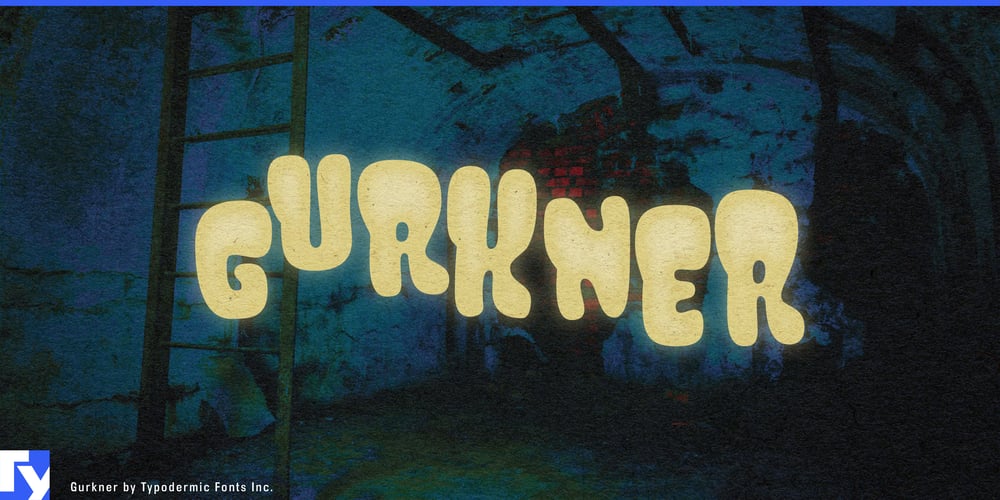
Gurkner
Gurkner font
Gurkner Font Family was designed by Ray Larabie and published by Typodermic. Gurkner contains 2 styles and family package options. Get ready for a typographic haunting like no other with Gurkner, the font that’s more than just letters—it’s a paranormal party on your page! This isn’t your grandmother’s spooky typeface; it’s a shape-shifting specter that dances between order and chaos with supernatural glee.Picture Gurkner as the Jekyll and Hyde of typography. On one side, you have the well-behaved ghost—a line of letters as neat and orderly as a parade of see-through Boy Scouts. But flip the typographic switch, and watch out! Suddenly, you’re dealing with a full-on poltergeist, each character bouncing and jiving like it’s just chugged a gallon of ectoplasmic espresso. But here’s where Gurkner really works its magic: its customizable pairings are like a Ouija board for your designs. Watch in awe as letters automatically swap and combine, creating a living, breathing text that’s as unpredictable as it is captivating. It’s not just type; it’s typographic necromancy!Gurkner isn’t content to haunt just one linguistic realm, either. Supporting a vast array of Latin-based European and some Cyrillic-based writing systems, this ghostly glyph set is ready to rattle chains and raise goosebumps from the misty moors of Scotland to the snow-capped peaks of the Urals. It’s the linguistic equivalent of a globetrotting ghost, fluent in the universal language of “BOO!” This font doesn’t just sit on the page—it possesses it. Use it for Halloween designs, and watch as your posters come alive with mischievous energy. Deploy it in children’s books, and see how it enchants young readers with its playful spirit. From quirky brand identities to whimsical web designs, Gurkner is the secret weapon for anyone looking to inject a dose of supernatural fun into their typography.In a world of fonts that play it safe, Gurkner is the daring poltergeist that’s not afraid to rattle a few chains. It’s for designers who understand that sometimes, to make a real impact, you need to let your typography run wild and free. It’s for brands that aren’t afraid to show their playful side, to revel in the joy of unpredictability and whimsy. So, are you ready to summon a typeface that’s equal parts adorable and anarchic? To give your designs a spectral makeover that’s guaranteed to raise spirits (pun absolutely intended)?It’s time to break free from the graveyard of boring fonts and embrace the lively spirit of a typeface that knows how to have fun.